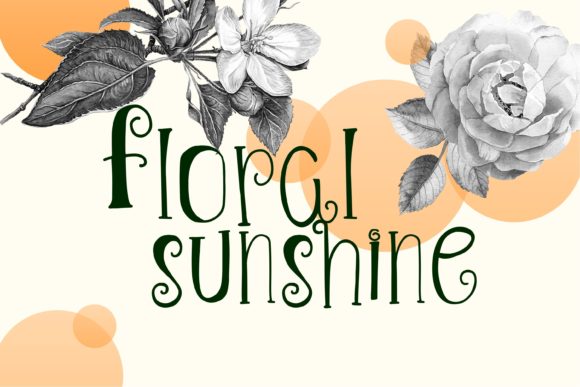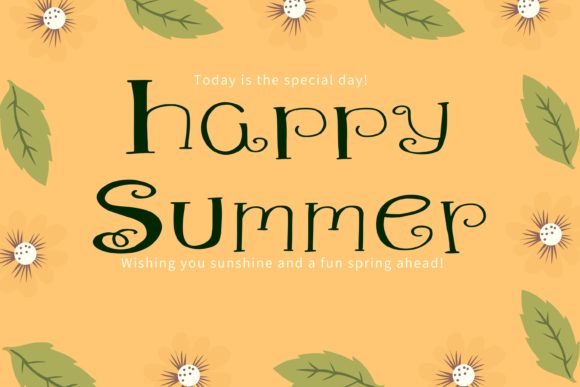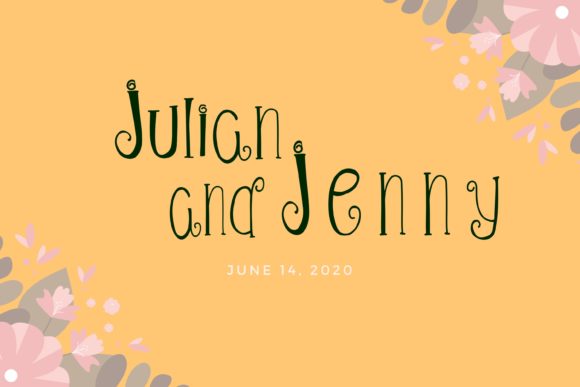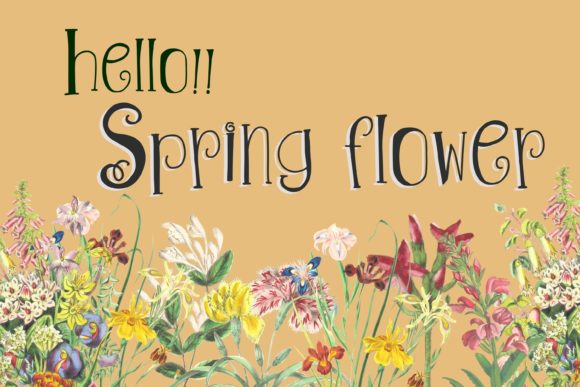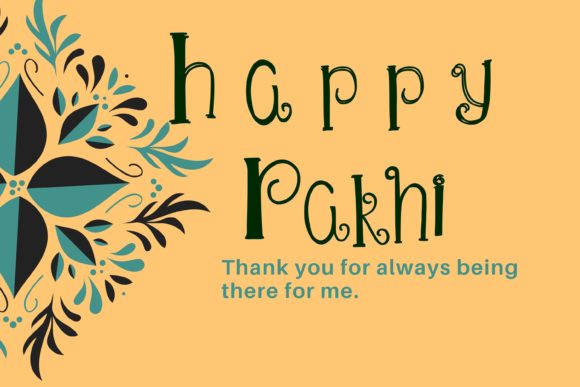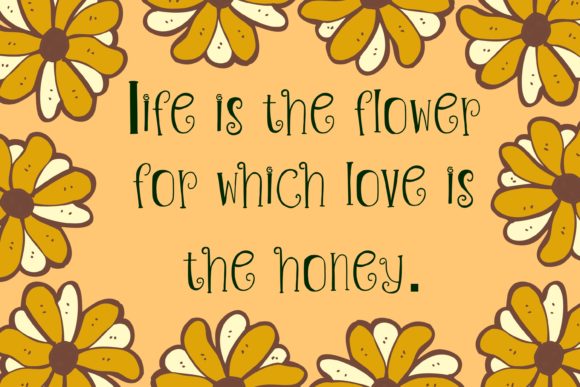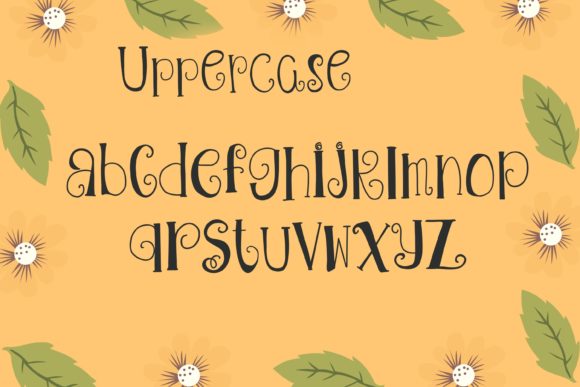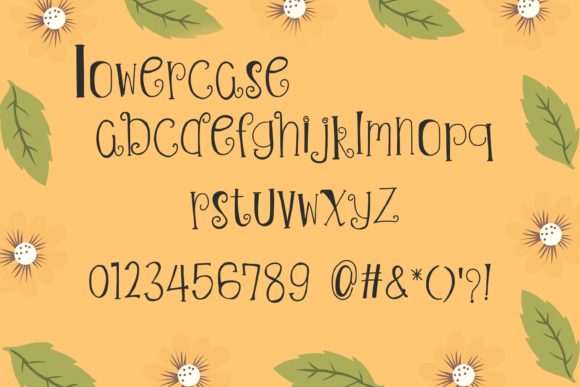
Floral Sunshine
Floral Sunshine: A Cheery and Sweet Slab Serif Font
Floral Sunshine is a distinctive slab serif font that combines cheerfulness with a sweet aesthetic. This versatile typeface offers designers a delightful tool for creating impactful typography across a wide range of creative projects.
Key Features of Floral Sunshine
• Cheery Design: Features a bright and uplifting appearance
• Sweet Aesthetic: Offers a charming and endearing look
• Slab Serif Structure: Incorporates the characteristic thick, rectangular serifs typical of slab serif fonts
• Versatile Application: Suitable for an incredibly large set of projects
• Stand-Out Quality: Designed to make creative ideas pop and grab attention
Ideal Uses for Floral Sunshine
Floral Sunshine’s unique characteristics make it well-suited for a wide range of applications, including:
• Cheerful branding and logo design
• Spring and summer-themed projects
• Children’s book typography
• Invitations and greeting cards
• Packaging design for joyful products
• Social media graphics and digital content
When incorporating Floral Sunshine into your designs, consider the following tips:
• Use for headlines or short blocks of text to maximize its cheery impact
• Experiment with different sizes to highlight the font’s sweet details
• Take advantage of its versatility across various projects and themes
Floral Sunshine is an excellent choice for designers looking to add a cheery and sweet slab serif to their typographic toolkit. Its versatility makes it stand out in the world of typography. Whether you’re working on logo designs, creating layouts for children’s books, or developing branding for joyful businesses, Floral Sunshine offers the perfect blend of cheerfulness and sweetness.
Add Floral Sunshine to your creative ideas and explore how it can bring a bright and sweet edge to your design projects. From delightful headlines to charming branding elements, this font provides the tools to create impactful and memorable typography that stands out in various design contexts.